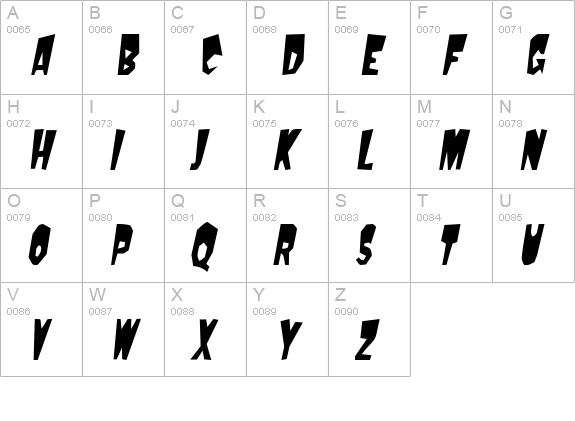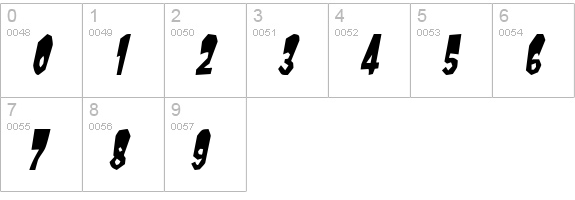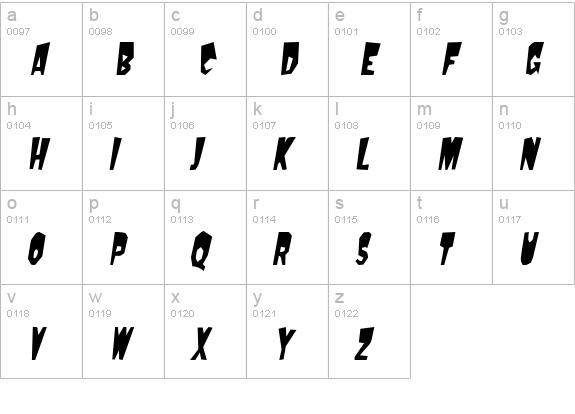
MondoCondensed Oblique Font Details
MondoCondensed Oblique is a distinctive, italic variant in the MondoCondensed typeface family \xE2\x80\x94 well suited to design and typography projects.
MondoCondensed Oblique font is a sleek and modern typeface that exudes sophistication and elegance. Its condensed design makes it perfect for creating eye-catching headlines and titles. The slanted italic style adds a dynamic touch to any design, making it stand out from the crowd. Best of all, MondoCondensed Oblique font is available for free download at FontsMarket.com. This means you can easily access this stunning font and use it in your projects without any cost. Whether you're working on a branding project, a poster design, or a website layout, MondoCondensed Oblique font will elevate your work to the next level. Don't miss out on this amazing opportunity to enhance your designs with this stylish and versatile font.